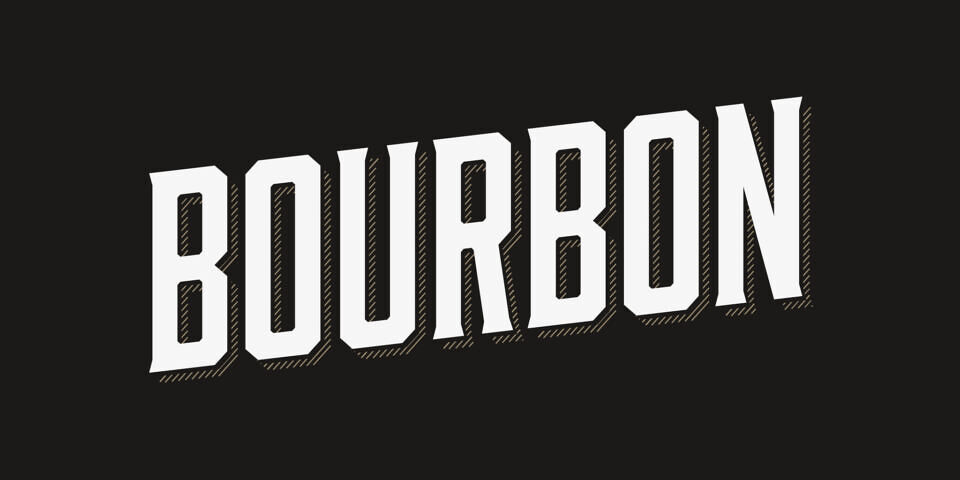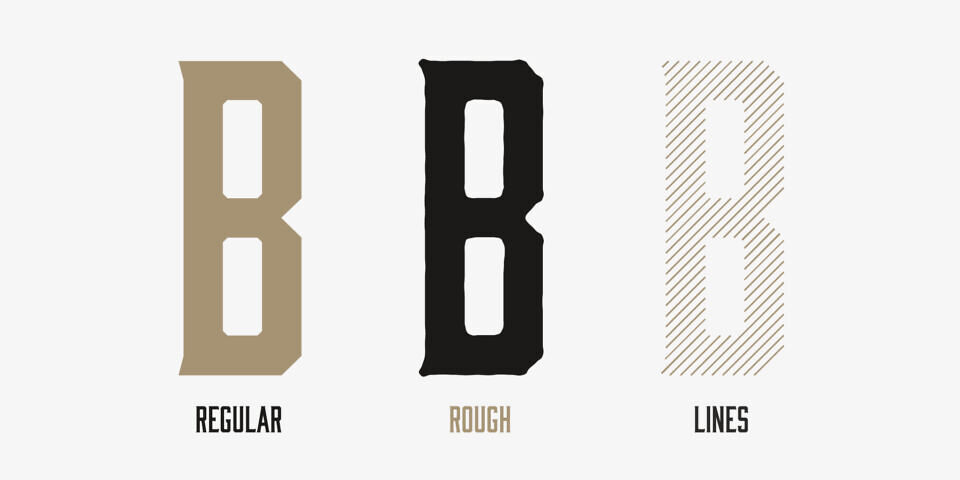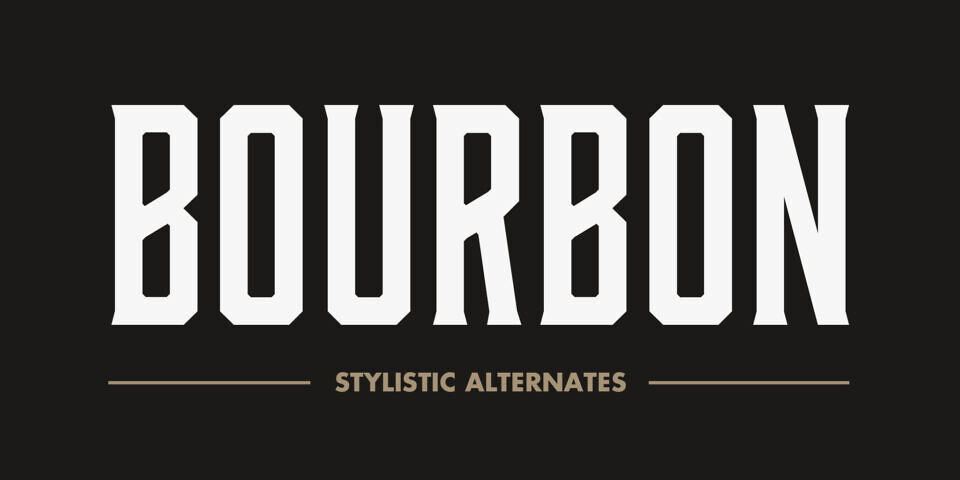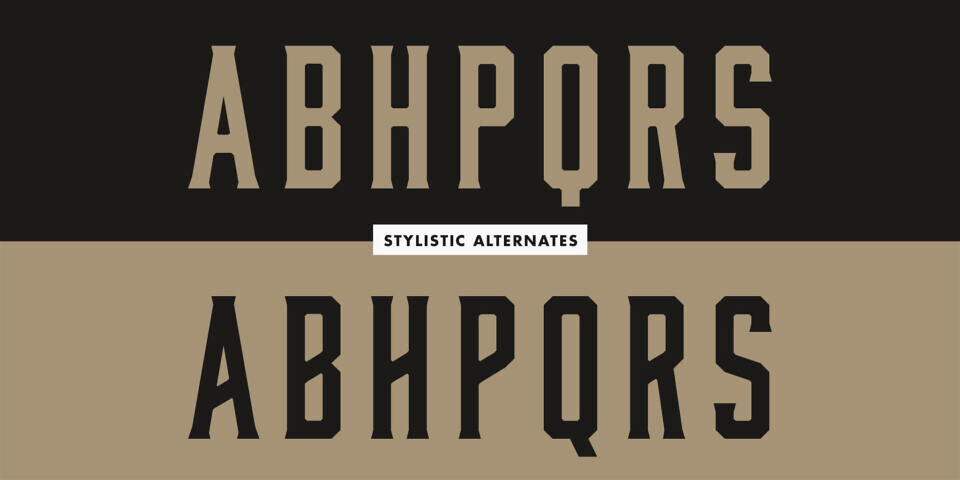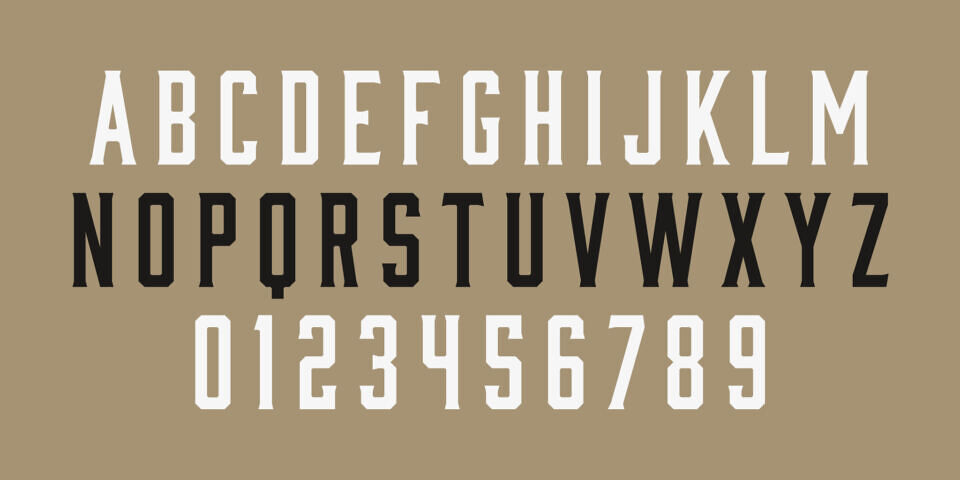
Bourbon Font Family
Bourbon is a condensed display serif inspired by old whiskey bottles. The letters play well with subtle, distressed textures or a nice, good-ole script. The Rough style works best in large sizes with anti-aliasing set to “Smooth.” Bourbon is an updated version of Moonshiner and has a sans-serif friend named Abolition.
Designed by: Fort Foundry (Mattox Shuler)